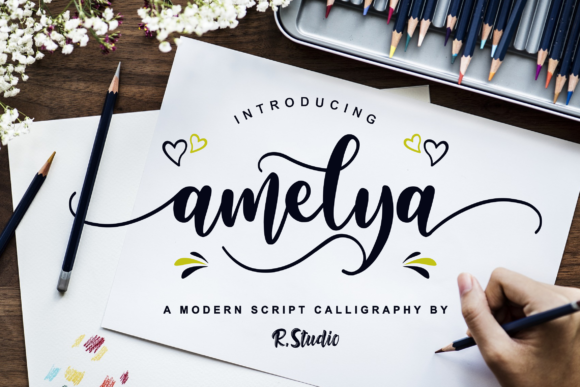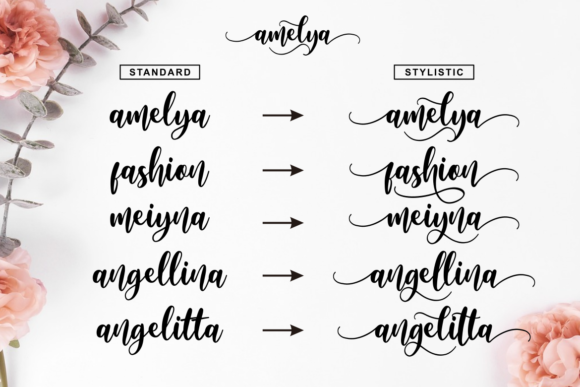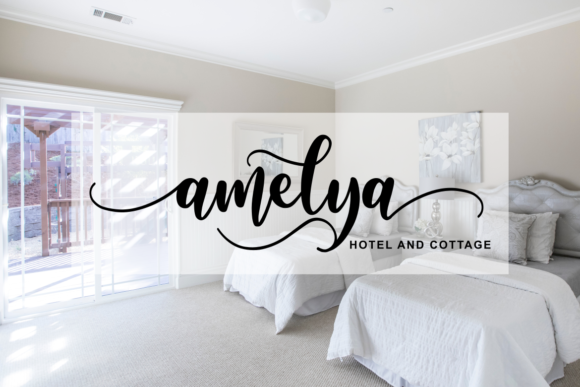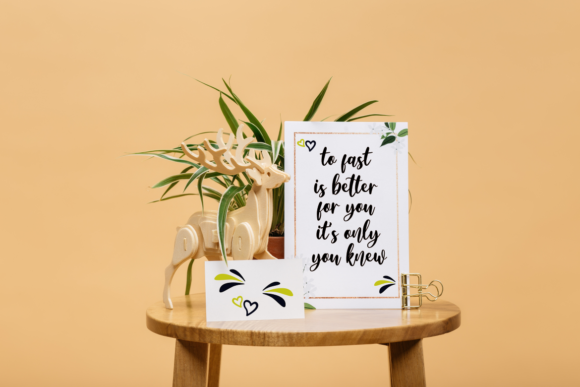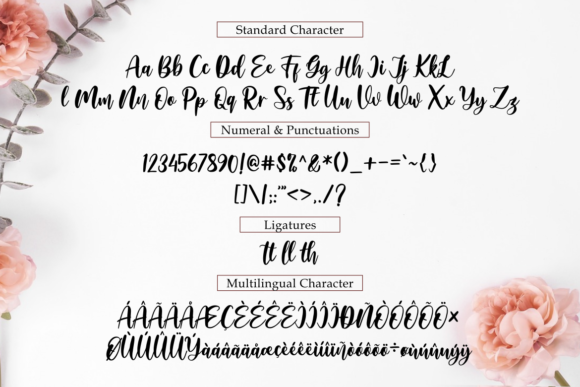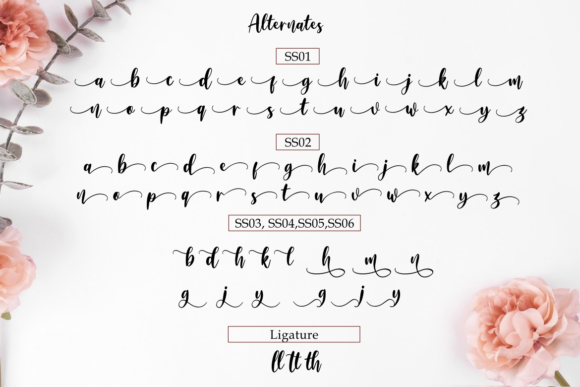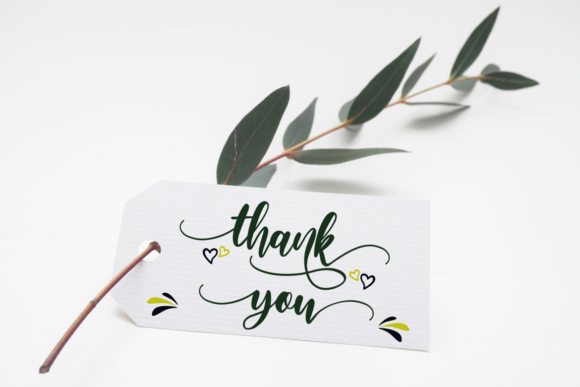
HomeScript FontsAmelya Font Script Fonts Amelya Font FacebookXPinterestWhatsApp Amelya Font Poster 2 Amelya Font Poster 3 Amelya Font Poster 4 Amelya Font Poster 5 Amelya Font Poster 6 Amelya Font Poster 7 Amelya Font Poster 8 About Amelya Font Amelya is a classic handwritten font with a delicate feel. Fall in love with its authentic charm! DOWNLOAD ON CREATIVE FABRICAThis font is sold and delivered by Creative Fabrica. Font Canyon may earn a commission if you buy through this link. People also explored Censow Font Peaches and Cream Font Knight Font Crunchy Croissant Font Gabriella Font Cupcakes Font Blackwell – Textured Brush Font Think Font Beautiful Queen Font 279 0 TagsAmelya Font Previous articleJedha FontNext articleMoonllime Font LEAVE A REPLY Cancel reply Comment: Please enter your comment! Name:* Please enter your name here Email:* You have entered an incorrect email address! Please enter your email address here Website: Save my name, email, and website in this browser for the next time I comment. Personal Use Free Cherry Ai Personal Use Free Read more about this font Haris Wood Personal Use Free Read more about this font BD RatterBit Personal Use Free Read more about this font Ennobled Pet Personal Use Free Read more about this font BLOG Fonts That Capture the Spirit of New York City New York City is more than just a place—it’s an experience, a rhythm, a visual language... 5 Fonts That Will Dominate Design Trends in 2026 Using Fonts in Digital Marketing: Tips to Strengthen Your Brand Identity Elegant Wedding Invitation Fonts – Handwritten & Script Fonts